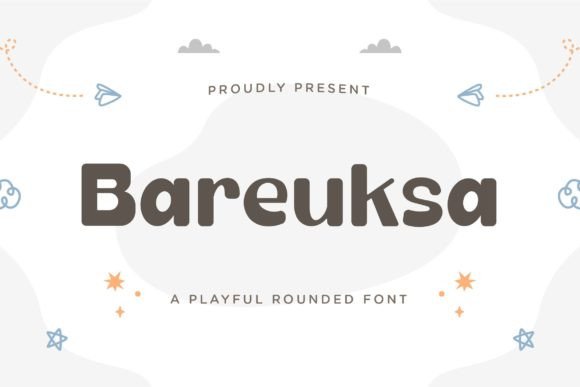
Bareuksa Font
Embrace the Playful Spirit of Bareuksa: Your Key to Captivating Poster Headings
In a world of monotonous fonts, Bareuksa emerges as a breath of fresh air, a playful rounded Sans font that sparks creativity and adds a touch of whimsy to your designs. Its charming curves and energetic lines dance across the page, effortlessly capturing attention and leaving a lasting impact.
Bareuksa is not just a font; it's an experience. A journey into a world of unbridled imagination, where your ideas take center stage and shine brighter than ever before. With its extensive character set, including a captivating selection of glyphs and ligatures, Bareuksa empowers you to craft truly unique and engaging designs that resonate with your audience.
Picture this: a stunning poster advertising an upcoming event, adorned with Bareuksa's playful charm. The bold strokes and cheerful curves draw the eye, inviting passersby to immerse themselves in the vibrant world you've created. Whether it's a concert, an art exhibition, or a product launch, Bareuksa sets the stage for an unforgettable experience.
Or perhaps you're working on a marketing campaign that demands attention. Bareuksa's inherent charisma shines through in headlines and slogans, leaving a lasting impression on potential customers. Its ability to effortlessly command attention makes it the perfect choice for creating brochures, flyers, and social media graphics that cut through the noise and leave a lasting impact.
But Bareuksa's versatility extends far beyond posters and marketing materials. Its playful nature lends itself perfectly to invitations, greeting cards, and even website designs. Imagine a wedding invitation adorned with Bareuksa's whimsical curves, hinting at the joyous celebration to come. Or a personal website that exudes creativity and individuality, thanks to Bareuksa's unique charm.
The possibilities with Bareuksa are endless, just like your imagination. Unleash your creativity and let Bareuksa guide you on a journey of self-expression and visual delight. Embrace the playful and let your designs stand out from the crowd.